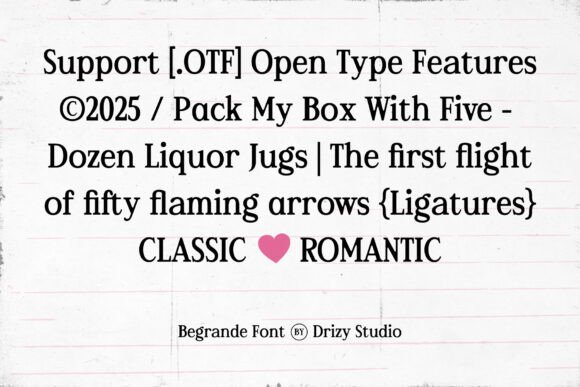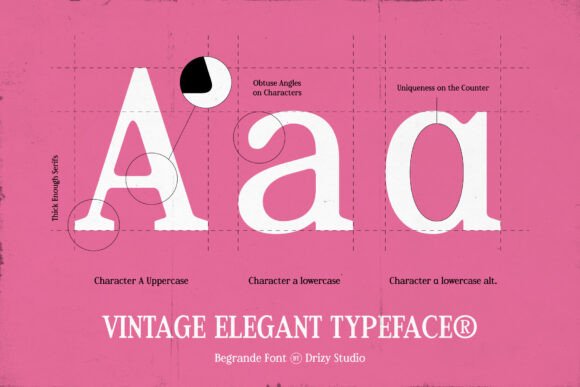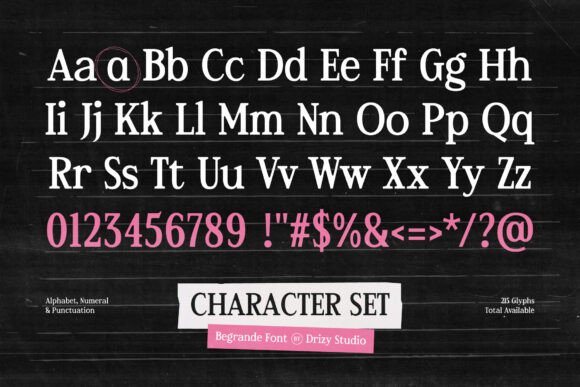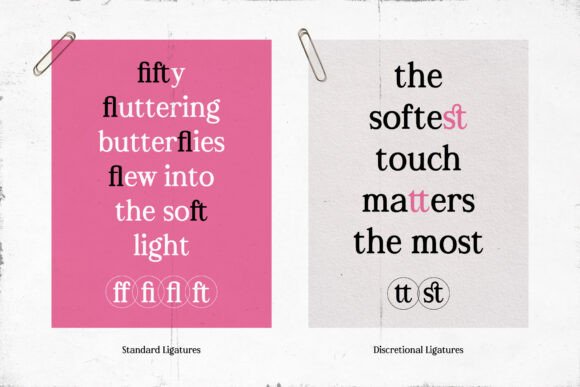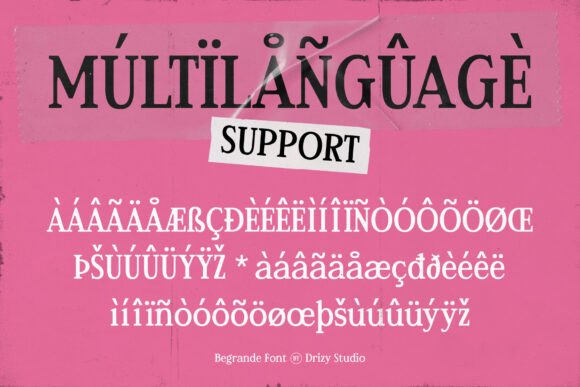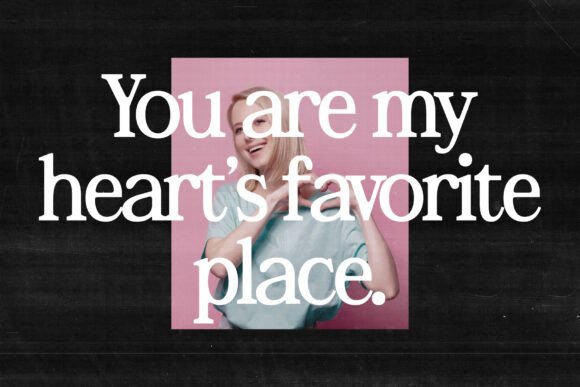
Begrande Font: Elevate Your Designs with Timeless Romance
In the world of typography, few fonts capture the essence of romance and elegance as effortlessly as Begrande. This classic romantic serif font is designed to infuse your designs with a sense of drama, emotion, and vintage charm, making it the perfect choice for a variety of creative projects. Whether you’re a designer, crafter, or simply someone who appreciates the beauty of typography, Begrande is sure to captivate your heart and inspire your imagination.
The Characteristics of Begrande Font
Begrande boasts a range of distinctive features that set it apart from other fonts. Its graceful curves and delicate serifs evoke a sense of refinement and sophistication, while its vintage charm adds a touch of nostalgia and warmth. The font’s classic design ensures that it remains timeless, never going out of style or fashion. Whether you’re creating a wedding invitation, a poetry collection, or a heartfelt letter, Begrande’s elegant appearance is sure to make a lasting impression.
Ideal for Romantic and Expressive Designs
Begrande’s romantic spirit makes it the ideal choice for a range of design projects, including:
- Wedding Invitations: Add a touch of elegance and sophistication to your wedding invitations with Begrande’s classic, romantic design.
- Poetry Collections: Bring your poetry to life with Begrande’s emotive and expressive typography, perfect for capturing the essence of your words.
- Heartfelt Letters: Whether you’re writing a love letter or a personal message, Begrande’s font adds a touch of warmth and sincerity to your words.
- Emo-Inspired Designs: For those who appreciate the emotional and dramatic, Begrande’s font is perfect for creating designs that speak to the heart.
Begrande – More than Just a Font
Begrande is more than just a font – it’s a way to tell a story, evoke an emotion, or create a lasting impression. Its classic design and romantic spirit make it the perfect choice for designers and crafters who want to add a touch of elegance and sophistication to their projects. With Begrande, you can:
- Elevate Your Typography: Add a touch of refinement and sophistication to your designs with Begrande’s elegant typography.
- Bring Your Story to Life: Use Begrande to tell a story, evoke an emotion, or create a lasting impression in every letter.
- Create Timeless Designs: With Begrande’s classic design, you can create designs that will stand the test of time, never going out of style or fashion.
Why Choose Begrande Font?
With so many fonts to choose from, why choose Begrande? Here are just a few reasons why Begrande stands out from the crowd:
- Unique and Distinctive: Begrande’s classic design and romantic spirit make it a unique and distinctive font that’s sure to capture attention.
- Versatile: Whether you’re creating a wedding invitation or a poetry collection, Begrande’s font is versatile enough to adapt to any design project.
- Emotional Connection: Begrande’s font has the power to evoke emotions and create a lasting impression, making it perfect for designs that require a personal touch.
In conclusion, Begrande is a timeless typeface that effortlessly combines elegance and emotion, making it the perfect choice for romantic and expressive designs. With its classic design, delicate serifs, and vintage charm, Begrande captures the essence of love and drama, adding a touch of sophistication and refinement to any project. Whether you’re a designer, crafter, or simply someone who appreciates the beauty of typography, Begrande is sure to inspire your imagination and elevate your designs.